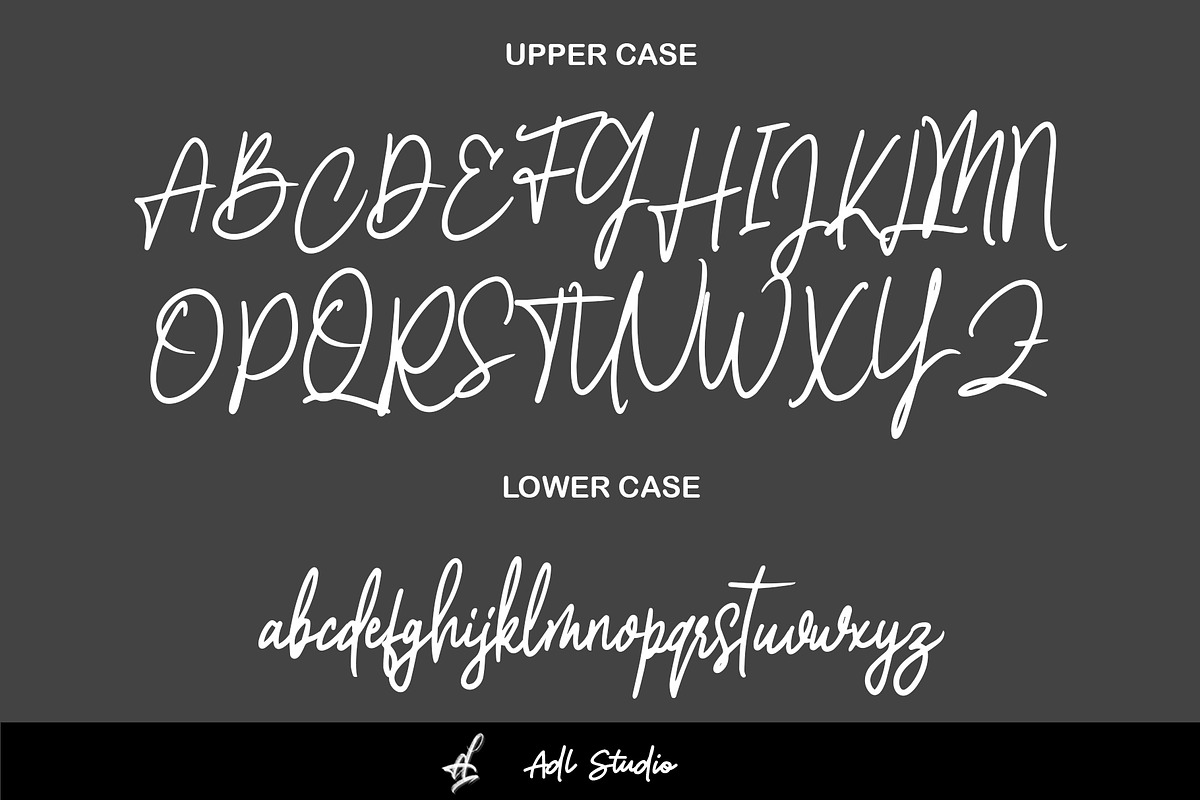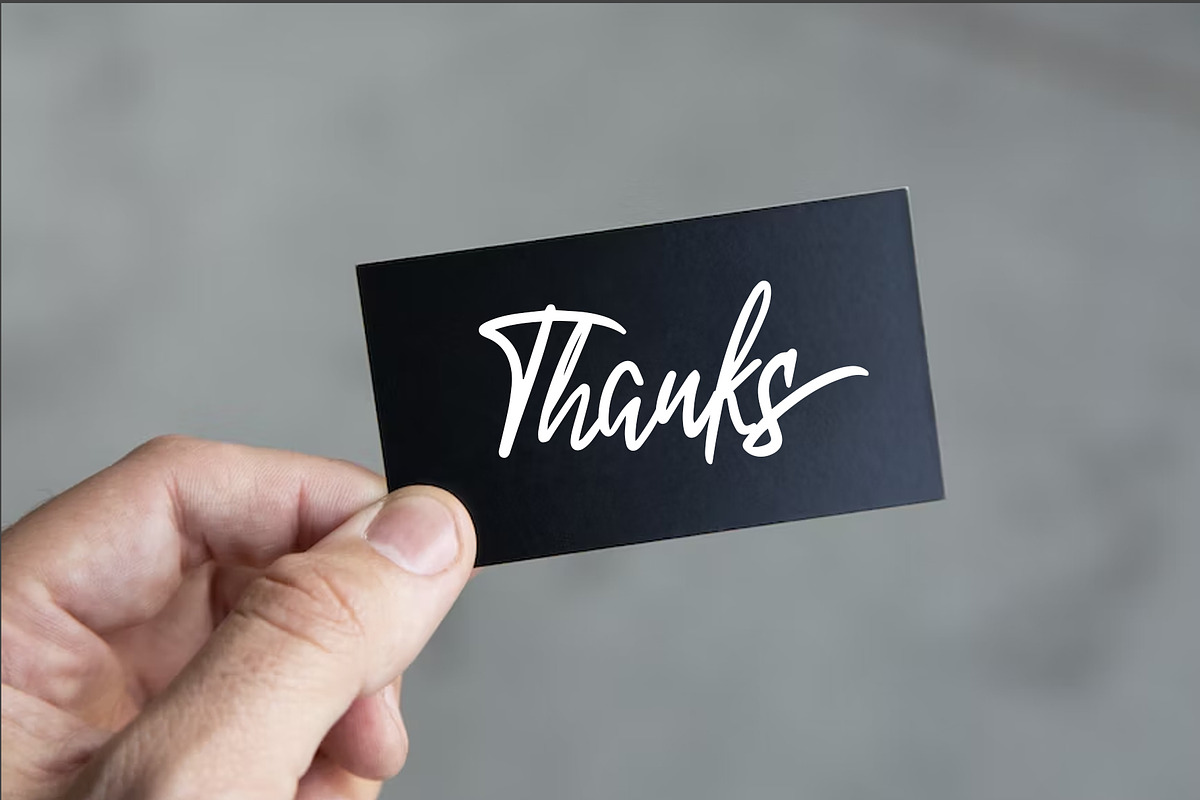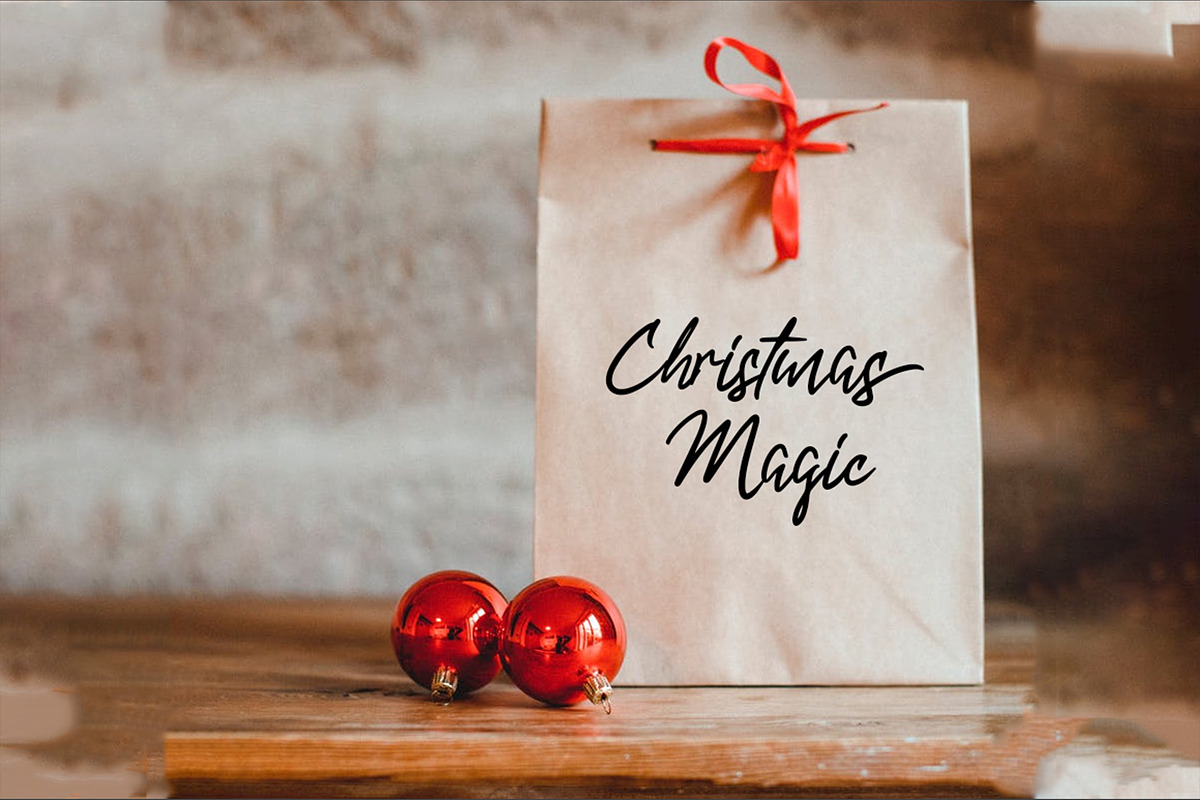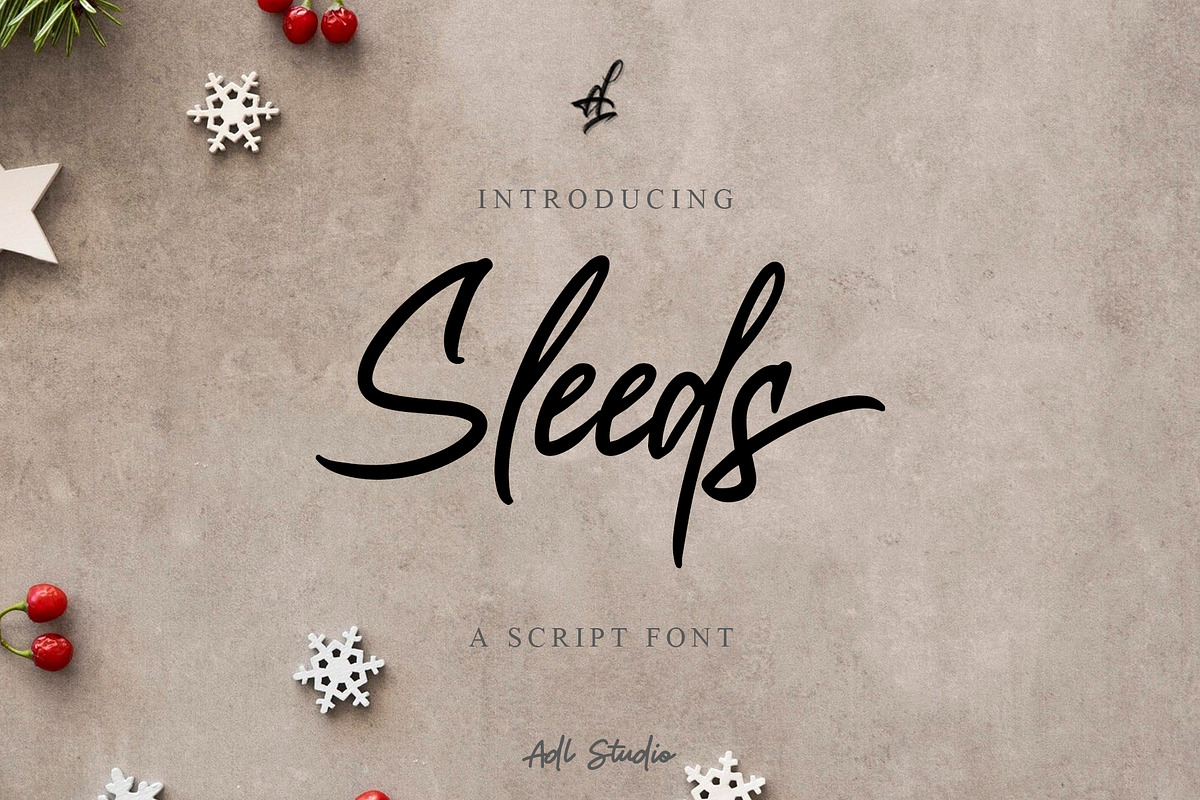
Sleeds
Introducing "Sleeds" - a stunning script font by ADL Studio, available exclusively on Creative Market. With its flowing curves and elegant design, Sleeds is perfect for adding a touch of sophistication to any project.
This versatile font is perfect for a variety of applications, including logos, branding, invitations, and more. The bold strokes and delicate details give Sleeds a unique character that will make your designs stand out.